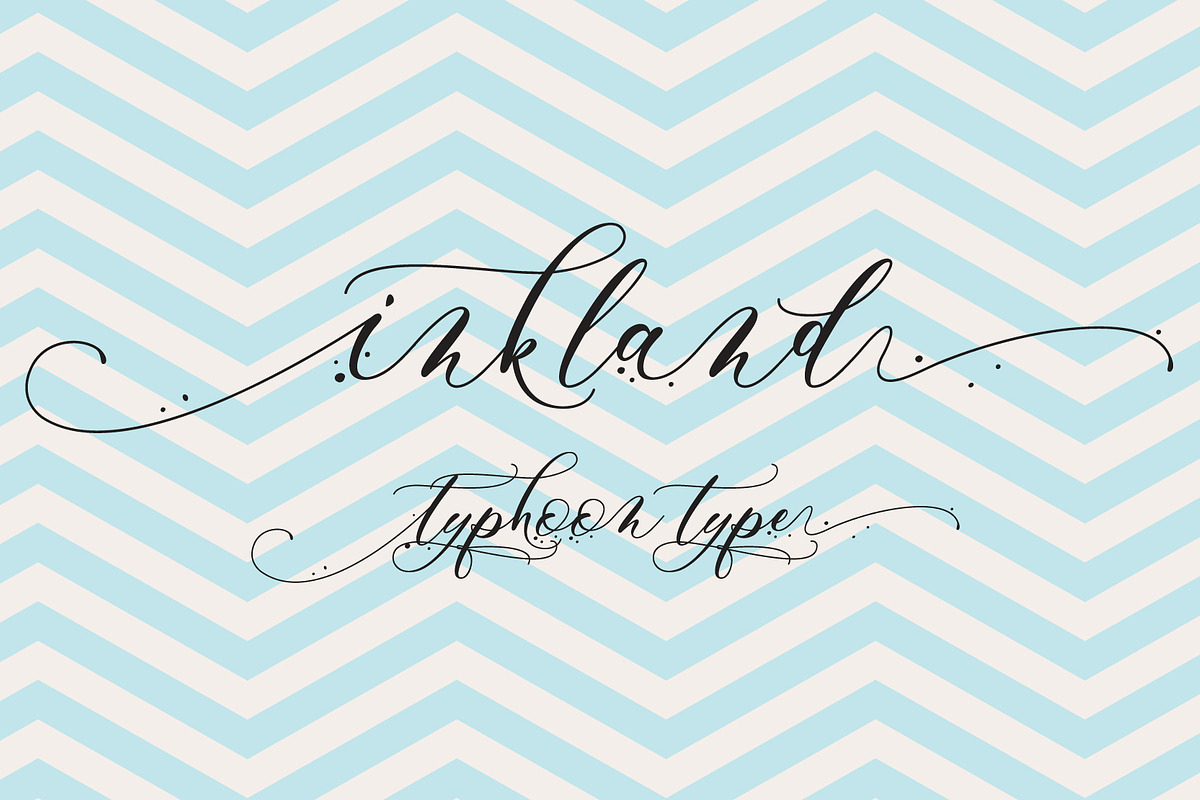
Inkland font
Inkland This font perfect for logos, name tag, advertising, product packaging, clothing, social media & greeting cards.
Why Inkland font is worth a look
Inkland font by TyphoonStudio fits naturally into Branding, posters, packaging, typography.